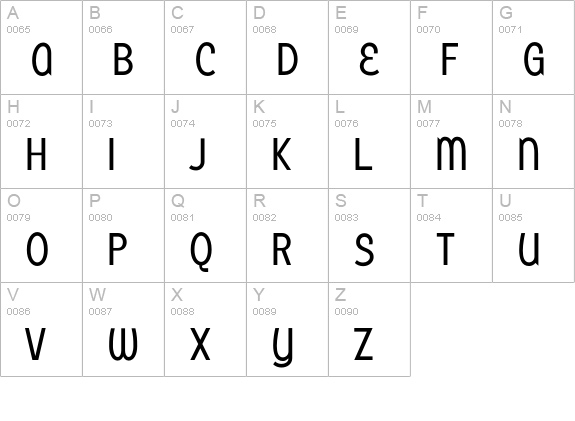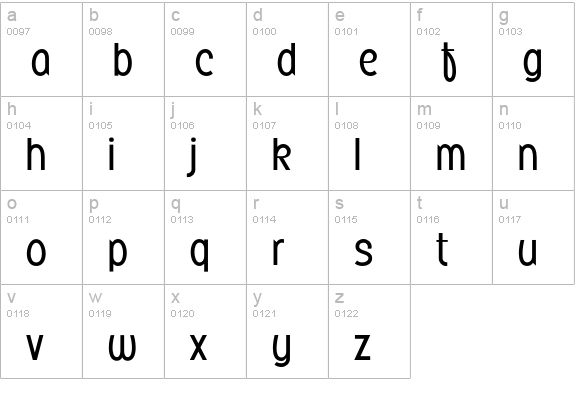
Sister-Light Font Details
Sister-Light is a refined, elegant variant in the Sister typeface family \xE2\x80\x94 well suited to elegant body text, refined sub-headings, and luxury branding.
Sister-Light font is a captivating and elegant typeface that will bring a touch of sophistication to any design project. Its slender and graceful letterforms create a harmonious balance, making it perfect for both headings and body text. This font exudes a sense of lightness and delicacy, making it ideal for projects that require a touch of femininity or a gentle, ethereal aesthetic. Its clean lines and subtle curves give it a timeless quality that will ensure your designs stand the test of time. With Sister-Light font, your words will be transformed into a work of art. Whether you're creating wedding invitations, branding materials, or editorial designs, this font will add a touch of elegance and refinement to your work. And the best part? Sister-Light font is completely free! It is freely available to download at FontsMarket.com, allowing you to access this stunning font without any cost. So go ahead and unleash your creativity with the Sister-Light font, and watch your designs come to life with its captivating beauty.